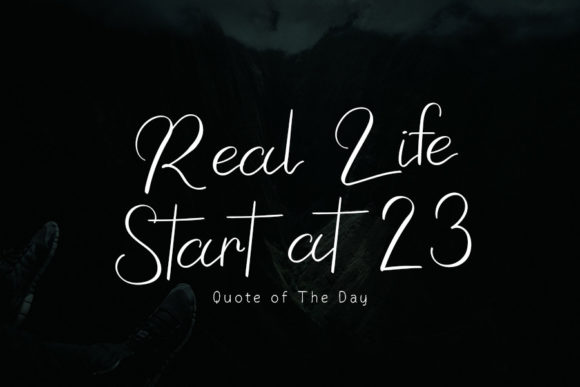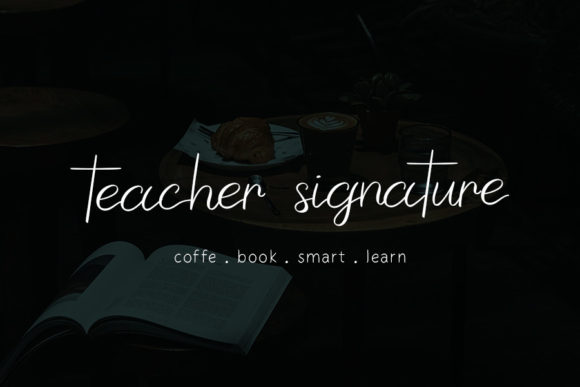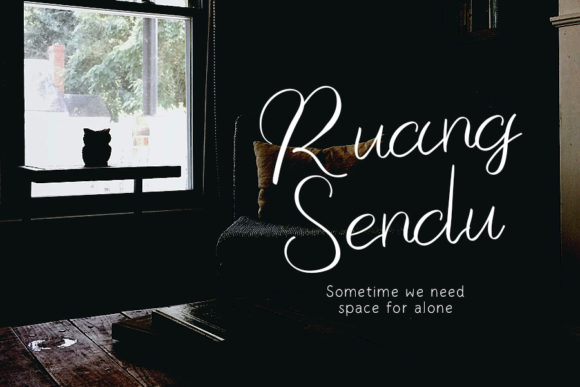
About Best Teacher Font
Best Teacher is a cursive and beautiful handwritten font. Its distinct and well balanced letters make this font a masterpiece. Fall in love with its incredibly versatile style and use it to create spectacular designs!